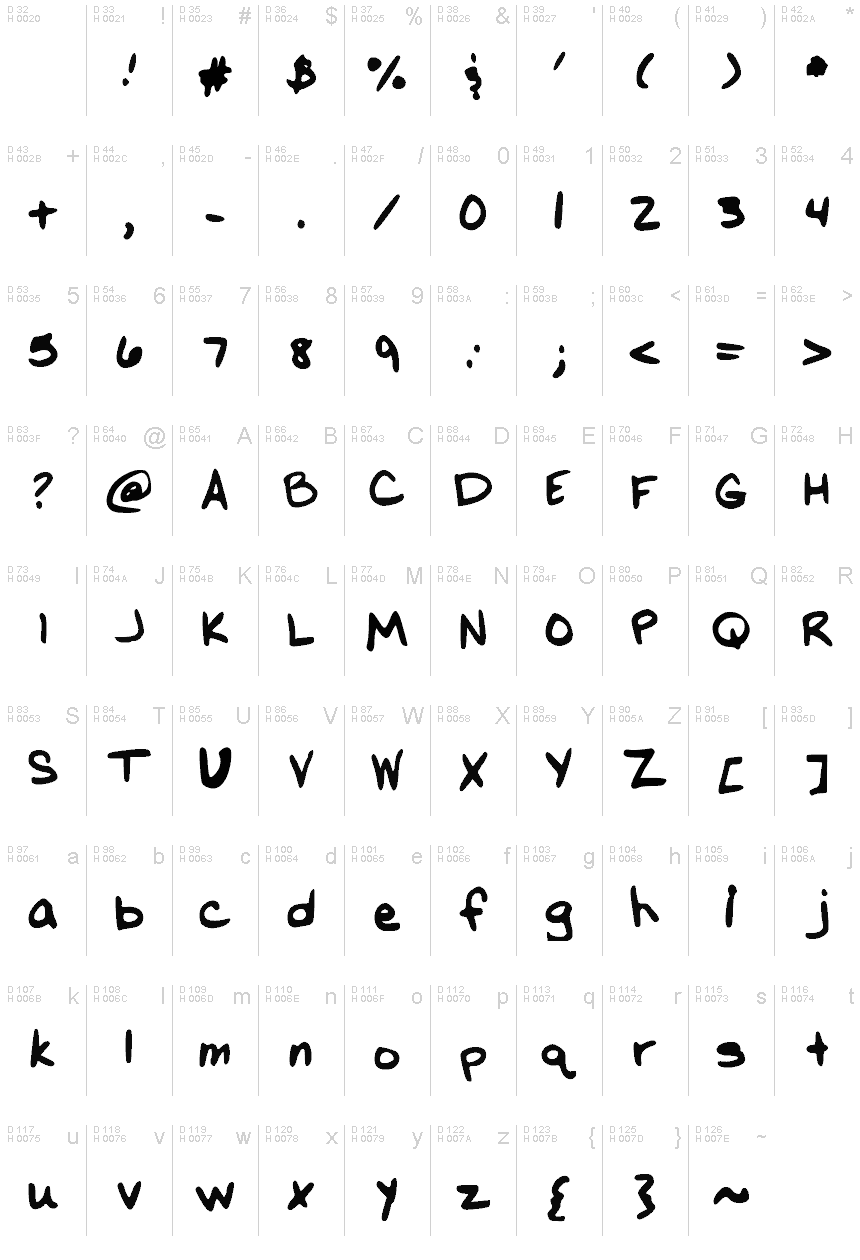
Melapalooza
With its bold, expressive strokes and playful curves, Melapalooza captivates the eye and elicits a sense of warmth and creativity. Crafted by designer Melinda, this handwritten font exudes a distinct personality, blending organic fluidity with a touch of whimsy. The varied line weights and natural irregularities imbue the characters with a charming, hand-crafted aesthetic, inviting the viewer to explore the font's nuances.
Melapalooza's versatility shines through, making it a versatile choice for a wide range of design applications. Its expressive nature lends itself well to branding, editorial, and packaging projects, where a touch of personality and individuality is desired. Whether crafting eye-catching headlines, crafting compelling marketing materials, or adding a personal touch to stationery, Melapalooza offers designers a unique and captivating typographic solution.